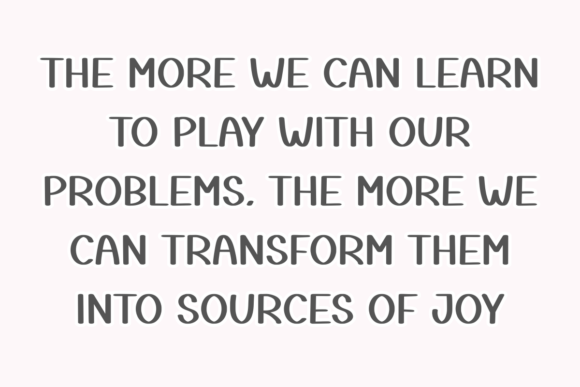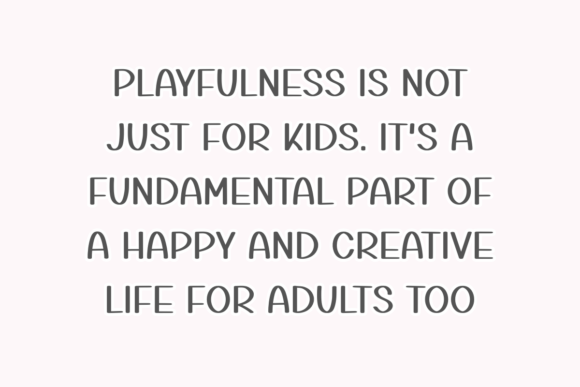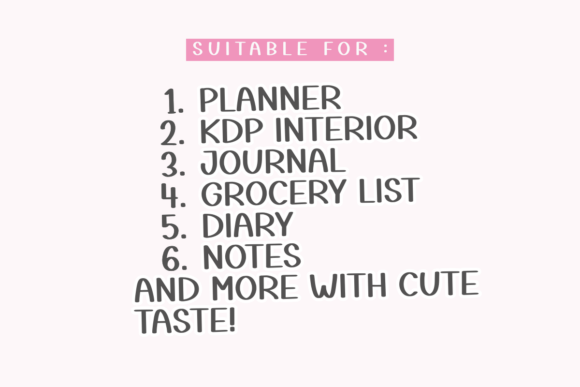
Have you ever stared at a blank canvas, paper, or screen, trying to come up with the perfect idea for your next creative project? The blank space can be intimidating, but the right tool can spark inspiration. For designers and crafters, the right font can make all the difference in bringing their vision to life.
Enter the Designer Font, a versatile and cute handwriting font that’s perfect for adding a playful touch to your designs. Whether you’re working on a planner, invitation, or branding project, this font brings a natural and endearing vibe that’s sure to capture attention. With its wide range of applications, the Designer Font is a valuable addition to any designer’s toolbox, offering endless possibilities for creativity and self-expression.
Key Features of “Designer Font”
Designer Review: Designer Font
Overall, I was excited to dive into the Designer Font, but my experience was a mixed bag. ✨ On the positive side, the font has some great characteristics that make it shine. Here are a few things that work well:
- Legibility: The font is easy to read, even at smaller sizes, making it perfect for body text.
- Style: The font has a unique, modern aesthetic that would be great for creative projects.
- Compatibility: The font is compatible with most devices and operating systems.
However, there are some limitations that prevent me from giving it a glowing review. ⚠️ Here are a few things to consider:
- Lack of bold weights: The font is limited in its weight options, which can make it difficult to create emphasis.
- No italic option: This can make it hard to create a clear distinction between different types of text.
- Not ideal for large headers: The font can become overwhelmed when used in large sizes, which can make it difficult to read.
Overall, I think the Designer Font is a solid choice for designers who are looking for a modern, legible font. However, it may not be the best option for projects that require bold or italic text, or for large headers. With a few tweaks to address these limitations, I think this font could be a real winner.
For best results, use the Designer Font in conjunction with bold, italic, and other font styles to create a visually appealing design.
Use the Designer Font for headings, titles, and other important text elements to make them stand out.